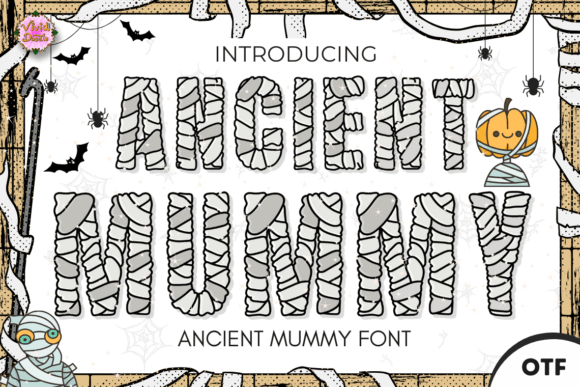
Ancient Mummy: A Strategic Typeface for Atmospheric Branding
In the realm of visual communication, typography is rarely just about legibility; it is a primary vehicle for setting tone, establishing context, and guiding emotional response. The Ancient Mummy font represents a specific, high-impact tool within this arsenal. It is not merely a decorative script but a deliberate design choice that evokes the enigmatic allure of ancient history, wrapped in the chilling aesthetic of the macabre. For entrepreneurs, marketers, and creators targeting audiences interested in horror, mystery, or seasonal events like Halloween, understanding how to deploy this typeface strategically can significantly enhance project outcomes.
The Ancient Mummies font is characterized by letters intricately designed to mimic the texture and form of bandages, decay, and shadow. This visual language speaks directly to themes of the supernatural, the forgotten, and the eerie. However, the strategic value of such a specialized asset lies not in its novelty, but in its ability to instantly communicate a complex narrative without a single word of copy. When used with intention, it transforms standard text into an atmospheric experience, bridging the gap between a modern digital interface and an ancient, haunting story.
Defining the Strategic Value of Specialized Typography
For decision-makers in marketing and creative direction, the introduction of a typeface like Ancient Mummy requires a shift from viewing fonts as mere formatting options to seeing them as brand assets. In a crowded digital landscape, differentiation is key. Generic sans-serif or serif fonts often fail to capture the specific mood required for niche campaigns. The Ancient Mummy font offers a distinct visual identity that separates a project from the mundane.
Strategically, this font serves three core functions:
- Immediate Contextualization: It signals the genre and tone instantly. A user encountering an invitation or landing page using this typeface understands immediately that they are entering a space dedicated to horror, mystery, or the occult.
- Emotional Engagement: The intricate details of the letterforms—evoking the look of tattered wrappings and shadows—trigger a visceral response. This engagement is crucial for events where atmosphere drives attendance or sales.
- Narrative Consistency: It ensures that the visual language aligns with the content's thematic goals, creating a cohesive experience that reinforces the message.
When planning a campaign, the choice to use Ancient Mummy should be driven by clear objectives. If the goal is to sell a horror-themed product, launch a spooky event, or create a memorable seasonal promotion, this font provides the necessary atmospheric weight. It turns a simple announcement into a "chilling celebration of the macabre," elevating the perceived value of the offering through superior aesthetic execution.
Integrating Ancient Mummy into Brand Positioning
Effective branding relies on consistency and clarity. Introducing the Ancient Mummies font into a design system must be done with a clear understanding of where it fits within the broader brand strategy. It is a powerful accent, not necessarily a foundational workhorse. For small business owners running a haunted attraction or a boutique specializing in gothic decor, this typeface can become a signature element of their visual identity.
Consider the long-term results of consistent visual storytelling. When a brand repeatedly uses a specific aesthetic, it builds recognition. The Ancient Mummy font, with its blend of ancient aesthetics and a modern twist, allows for versatility. It can be used for large headlines to grab attention while pairing with cleaner, more legible body fonts for detailed information. This approach balances the need for impact with the necessity of readability, ensuring that the strategic message is not lost in the decoration.
Marketers should view this font as a lever for customer experience. In the context of a Halloween party invitation or a promotional email for a horror movie release, the font sets expectations before the recipient reads the first sentence. It primes the audience for a specific experience, increasing the likelihood of conversion because the visual promise matches the actual delivery. This alignment between expectation and reality is a cornerstone of effective customer relations and trust-building.
Practical Use Cases and Implementation Planning
To maximize the utility of the Ancient Mummy font, it is essential to identify specific scenarios where its unique characteristics provide a competitive advantage. Random application dilutes its power; targeted application amplifies it. Below are practical use cases where this typeface delivers measurable value.
Seasonal Campaigns and Events
October is a critical revenue period for many industries, from retail to entertainment. The Ancient Mummy font is ideally suited for Halloween-themed decorations, party invitations, and promotional materials. By utilizing this typeface, event organizers can create a sense of exclusivity and immersion. For example, a flyer for a "Midnight Masquerade" gains immediate credibility and intrigue when the title is rendered in this spine-chilling style. The font acts as a filter, attracting the right demographic while repelling those uninterested in the theme, thereby improving lead quality.
Product Packaging and Merchandise
For creators and small business owners selling physical goods, packaging is the first point of tactile interaction. Using the Ancient Mummy font on labels, boxes, or tags for products like candles, costume accessories, or horror novels adds a layer of premium quality. It suggests that the product is part of a curated collection rather than a mass-market item. This perception of value can justify higher price points and foster brand loyalty among enthusiasts.
Digital Content and Social Media
In the digital sphere, standing out in a feed is challenging. Graphics incorporating the Ancient Mummies font can break through the noise of standard social media posts. Whether for a blog post header about ghost stories, a YouTube thumbnail for a horror review, or an Instagram story announcing a limited-time offer, the font draws the eye. It creates a visually striking and enigmatically eerie experience that encourages users to pause and engage.
Risks of Indiscriminate Application
While the Ancient Mummy font offers significant advantages, it carries inherent risks if deployed without strategic foresight. The most common pitfall is overuse. Because the font is highly stylized, using it for large blocks of body text can severely compromise readability. Legibility is a fundamental requirement for effective communication; if the audience struggles to decipher the message, the strategic goal fails regardless of how "cool" the design looks.
Furthermore, there is the risk of tonal dissonance. Using a font associated with death, decay, and the supernatural in contexts requiring trust, safety, or professionalism—such as financial reports, medical communications, or corporate announcements—can damage credibility. The juxtaposition of a "hauntingly atmospheric" font with serious subject matter creates cognitive dissonance, leading to confusion or even offense.
Another consideration is the potential for aesthetic fatigue. Trends in design evolve, and what feels fresh today may appear dated tomorrow. Relying too heavily on a single, highly thematic font can pigeonhole a brand, making it difficult to pivot or expand into new markets later. It is crucial to treat the Ancient Mummy font as a tactical tool for specific campaigns rather than a permanent fixture of a brand's core identity unless the brand itself is exclusively focused on the horror genre.
Decision-Making Framework for Designers and Marketers
To ensure the intentional use of the Ancient Mummy font, professionals should adopt a structured decision-making process before integrating it into any project. This framework helps align the design choice with broader business goals and operational realities.
- Define the Objective: What is the primary goal of this communication? Is it to evoke fear, excitement, curiosity, or nostalgia? If the answer does not align with the macabre or mysterious, reconsider the font choice.
- Analyze the Audience: Does the target demographic appreciate this aesthetic? Understanding the cultural context and preferences of the 20–50 age group is vital. While many enjoy horror and mystery, others may find it off-putting depending on the context.
- Evaluate Readability: Test the font at various sizes. Ensure that headlines are impactful but that supporting text remains accessible. Pairing Ancient Mummy with a neutral sans-serif font is often the best practice for maintaining clarity.
- Check Brand Alignment: Does this font reinforce the existing brand values, or does it contradict them? Consistency across all touchpoints is essential for long-term brand equity.
- Plan for Scalability: Consider how the font will look across different mediums—from a massive billboard to a mobile screen. Ensure the intricate details do not get lost in smaller formats.
By following these steps, creators can avoid the trap of random decoration and instead leverage the Ancient Mummy font as a calculated asset. This disciplined approach ensures that every design decision contributes to the overall strategy, whether that is driving ticket sales, boosting brand awareness, or enhancing the user experience.
Long-Term Value and Creative Productivity
Beyond immediate campaigns, the thoughtful integration of specialized typography like Ancient Mummy can enhance creative productivity and learning within a team. Exploring the nuances of how different fonts affect perception fosters a deeper understanding of visual psychology. Teams that experiment with and analyze the impact of such fonts develop a sharper eye for detail and a more robust vocabulary for discussing design choices.
Moreover, having a library of versatile, high-quality assets streamlines the production process. When a marketer knows exactly which font to reach for when a horror-themed opportunity arises, they save time on research and iteration. This efficiency allows more resources to be allocated to other critical areas, such as content creation, distribution strategy, and customer analysis. The Ancient Mummy font, therefore, becomes more than a graphic element; it becomes a component of an optimized workflow.
Ultimately, the power of the Ancient Mummy font lies in its ability to transform ordinary projects into visually striking experiences. It invites the viewer into a world of mystery and suspense, turning every interaction into a memorable event. However, this power must be wielded with precision. By grounding its use in clear goals, realistic planning, and a deep understanding of audience psychology, professionals can harness its full potential. The result is not just a spooky design, but a strategically sound communication that achieves better results and leaves a lasting impression.